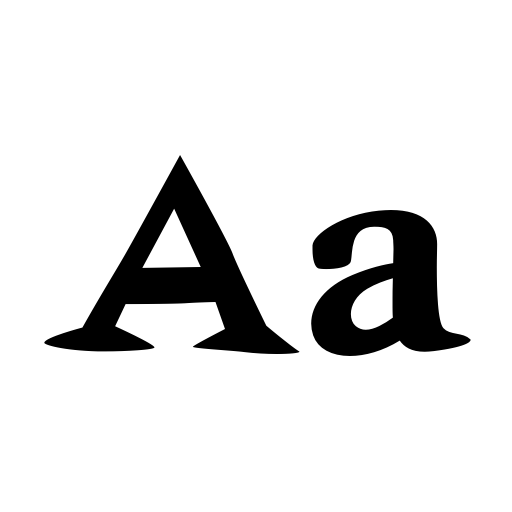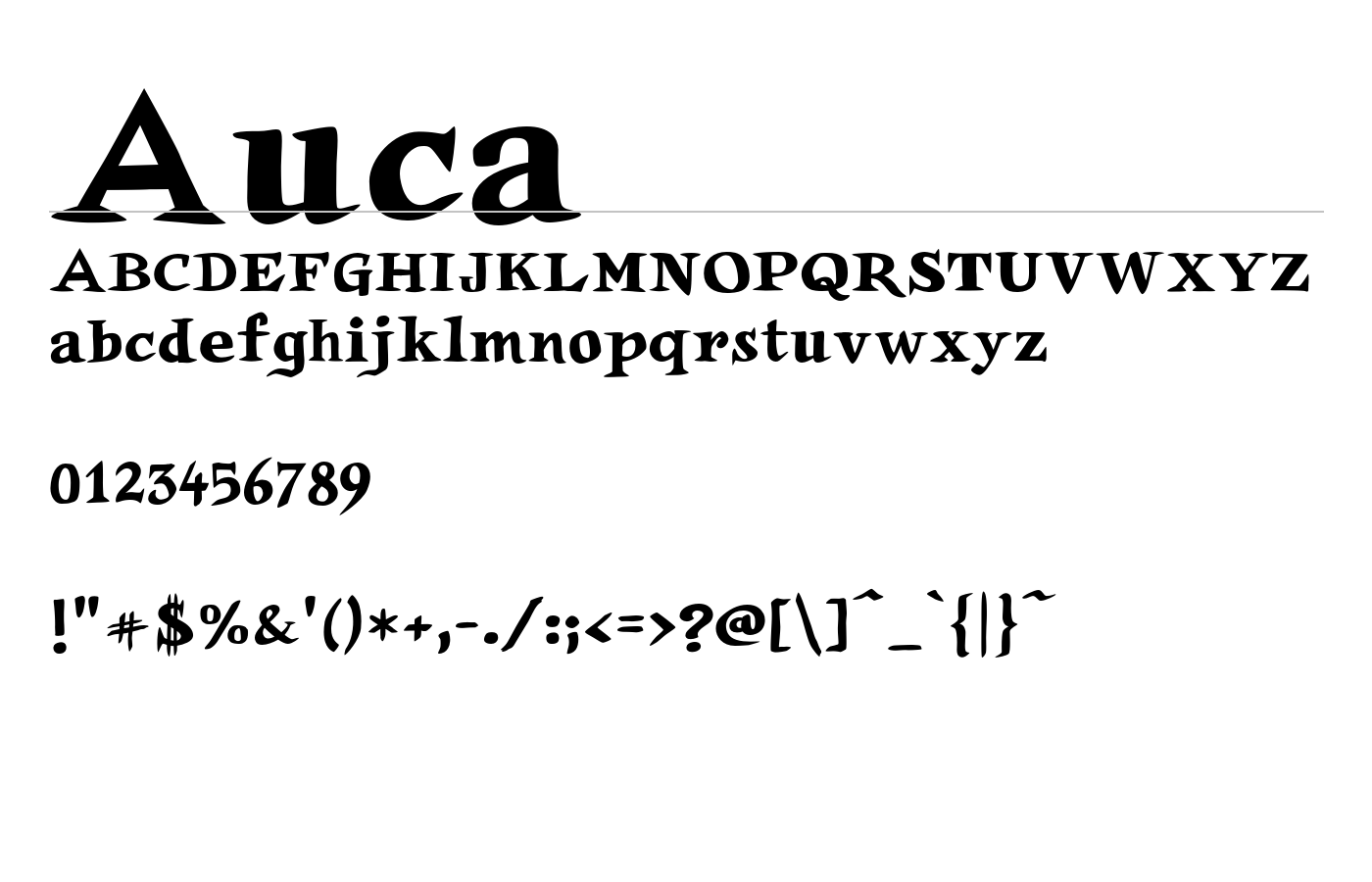
Auca is a playful serif font with strong, slightly condensed letterforms and a moderate contrast between thick and thin strokes. Its unique, quirky shapes and gently bracketed serifs give it a hand-crafted, vintage feel, making it ideal for creative branding, headlines, and packaging that want to evoke personality and charm. This font works well where a distinctive, friendly yet classic tone is needed, blending tradition with a touch of whimsy.
Auca Font
About Auca Font